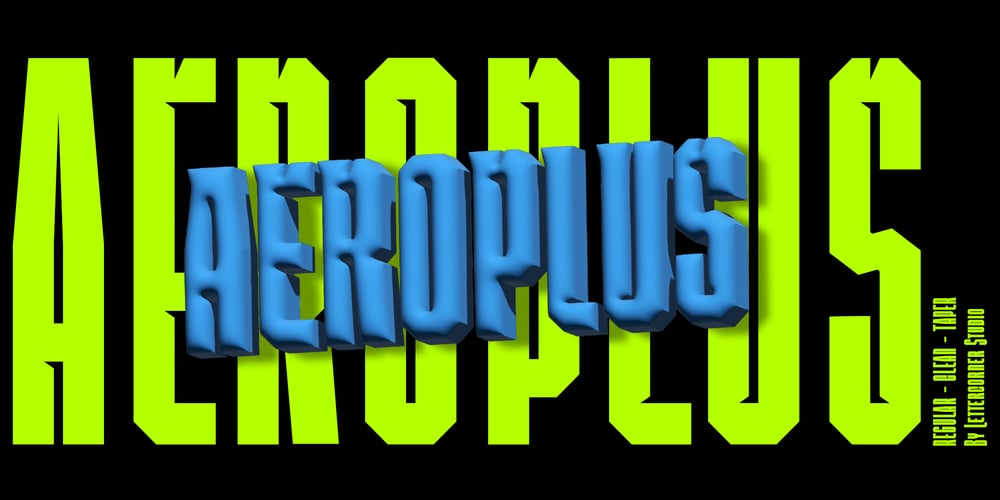
Aeroplus Font Family was designed by Muhammad Afif Ersya and published by Mevstory Studio. Aeroplus contains 6 styles and family package options. Aeroplus, is an extra condensed grotesque typeface designed to steal the show. Its meticulously crafted ultra-compressed letterforms pack a powerful punch, allowing you to create impactful headlines and captivating displays even in the most space-restricted environments.